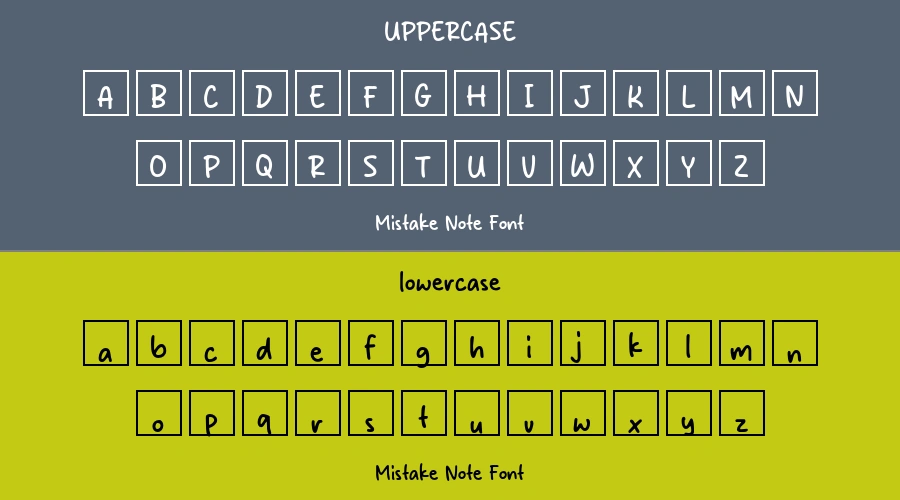
About Mistake Note Font
Mistake Note Font embodies typographic excellence through its masterful combination of rhythmic patterns and message hierarchy. Created for editorial design, this typeface delivers exceptional endurance and market appeal across all applications. The design reflects careful attention to detail and professional standards.
Advanced capabilities include distinctive creative flair and versatile inferior figures, giving designers creative control. When used in product names, Mistake Note Font exhibits remarkable body text reading. The harmonious balance between stroke contrast and scholarly tradition sets this typeface apart.
Mistake Note Font |